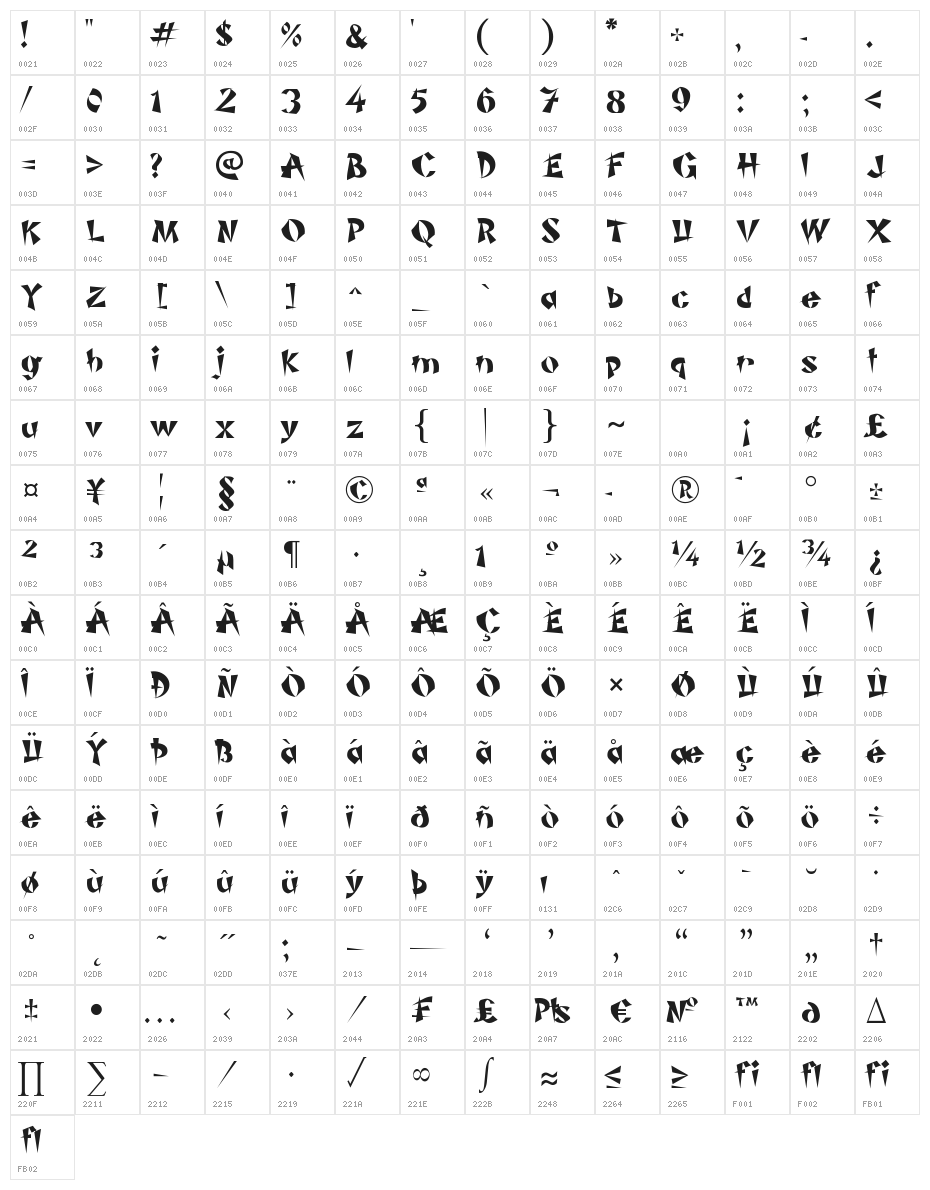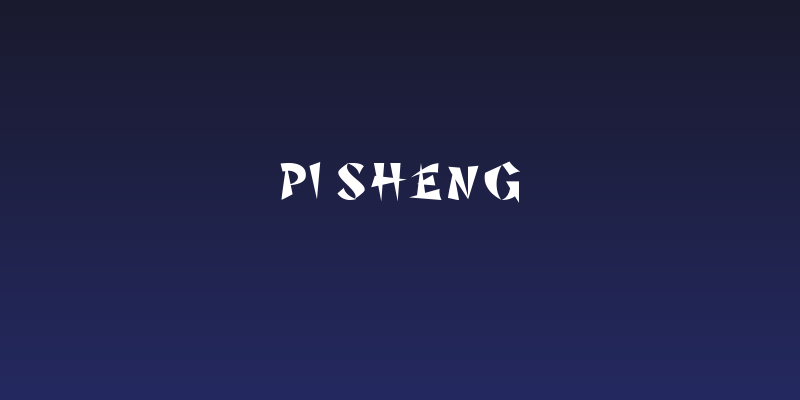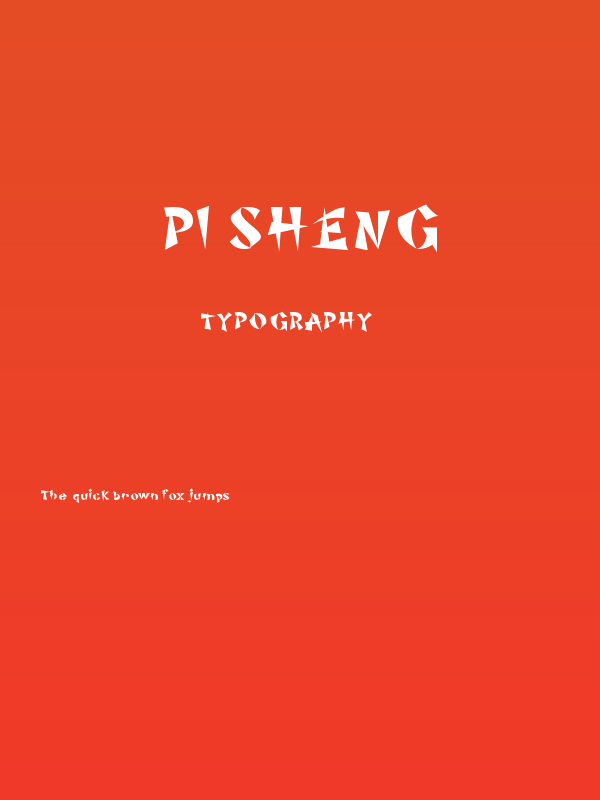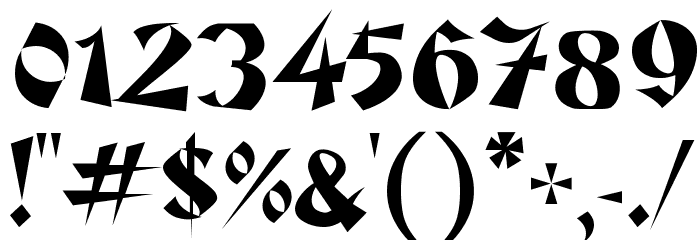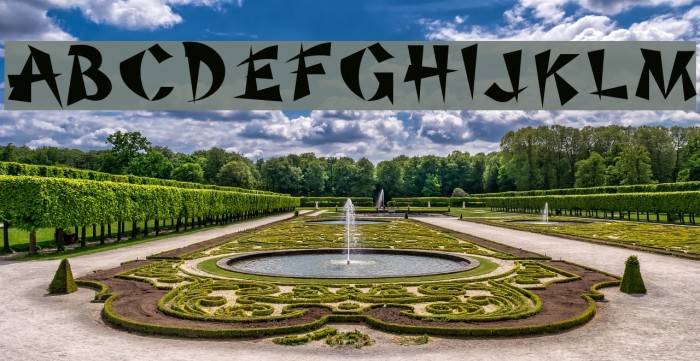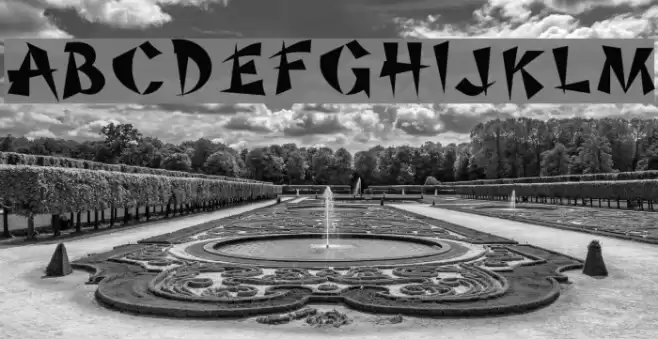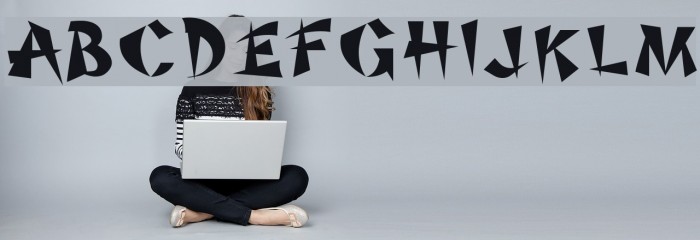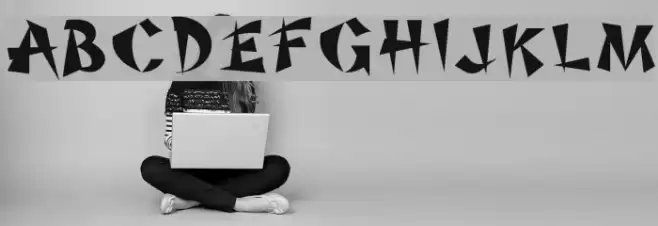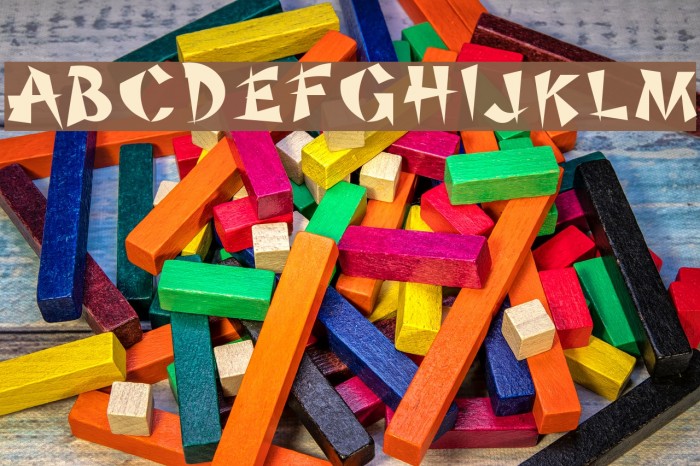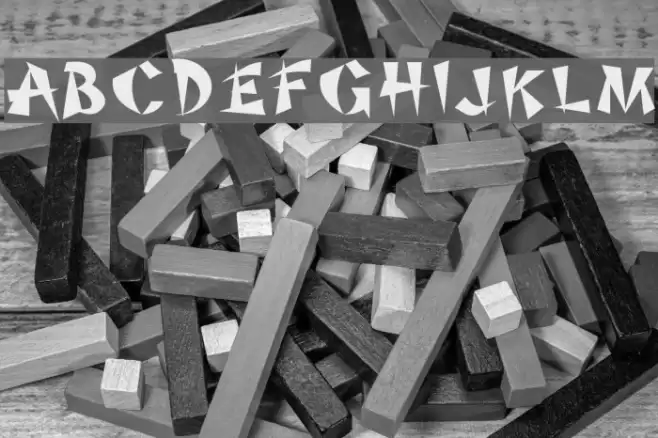
Pi Sheng Font
Pi Sheng Description
This font features a bold, angular design with sharp edges and dynamic strokes, creating a sense of movement and energy. The uppercase and lowercase letters maintain a consistent style, with exaggerated serifs and pointed terminals that give the typeface a distinctive, aggressive appearance. The numerals and special characters follow the same aesthetic, ensuring uniformity across all glyphs. The font's unique style makes it stand out, making it suitable for eye-catching designs. Its boldness and sharp angles suggest a modern, edgy feel, perfect for projects that require a strong visual impact.
PI-SHENG UPPERCASE
PI-SHENG LOWERCASE
PI-SHENG OTHER CHARS
| Overall Style | Modern, Edgy |
| Proposed Projects | Suitable for posters, album covers, branding, and any project requiring a bold, edgy aesthetic. |